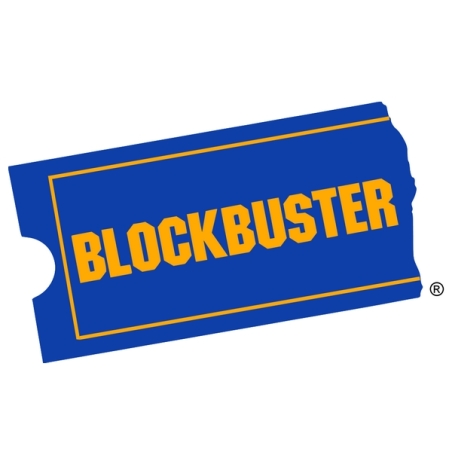
About Blockbuster Font
In the 90s and early 2000s, Blockbuster, a well-known home movie and video game provider, offered a diverse selection of movies, games, and accessories for rental and purchase.
The Blockbuster logo is believed to utilize ITC Machine Bold, a bold and industrial font designed by Ronne Bonder and Tom Carnase in 1970.The above font can be downloaded here.